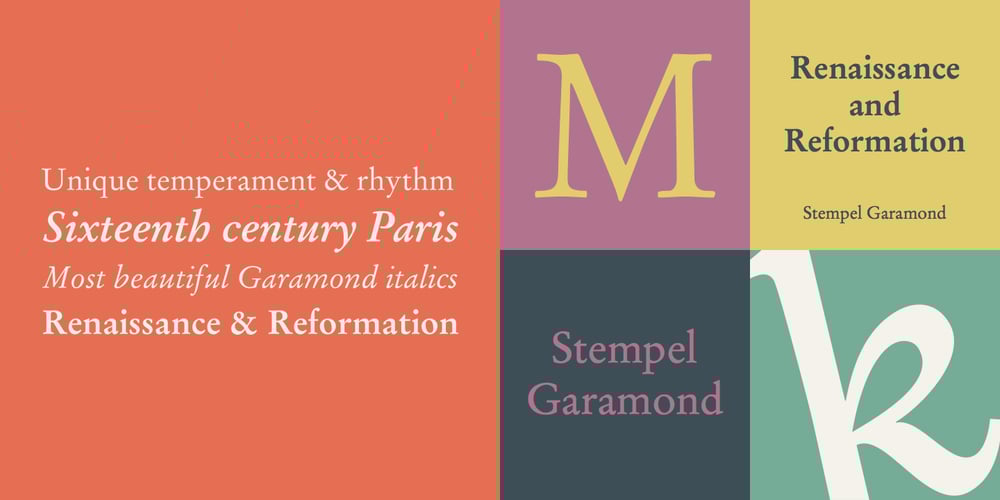
Stempel Garamond LT Font Family was designed by Claude Garamond, D. Stempel AG and published by Linotype. Stempel Garamond LT contains 4 styles and family package options. Opinion varies regarding the role of Claude Garamond (ca. 1480–1561) in the development of the Old Face font Garamond. What is accepted is the influence this font had on other typeface developments from the time of its creation to the present. Garamond, or Garamont, is related to the alphabet of Claude Garamond (1480–1561) as well as to the work of Jean Jannon (1580–1635 or 1658), much of which was attributed to Garamond. In comparison to the earlier Italian font forms, Garamond has finer serif and a generally more elegant image. The Garamond of Jean Jannon was introduced at the Paris World’s Fair in 1900 as Original Garamond, whereafter many font foundries began to cast similar types. The famous Stempel Garamond interpretation of the 1920s remains true to the original Garamond font with its typical Old Face characteristics. The bold italic was a modern addition at the end of the 1920s and the small caps provided an alternative to the standard capital letters. In the mid 1980s, a light version was added to Stempel Garamond. Since its appearance, Stempel Garamond has been one of the most frequently used text fonts.